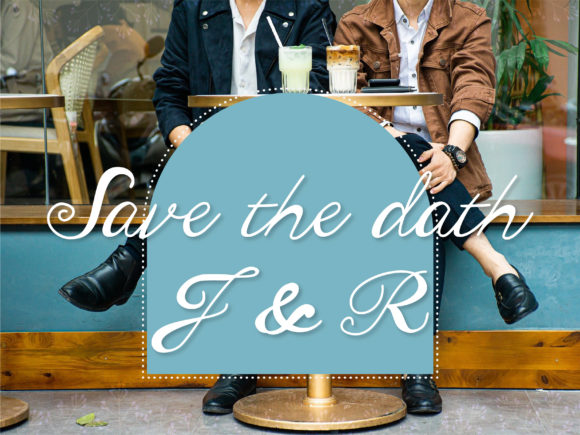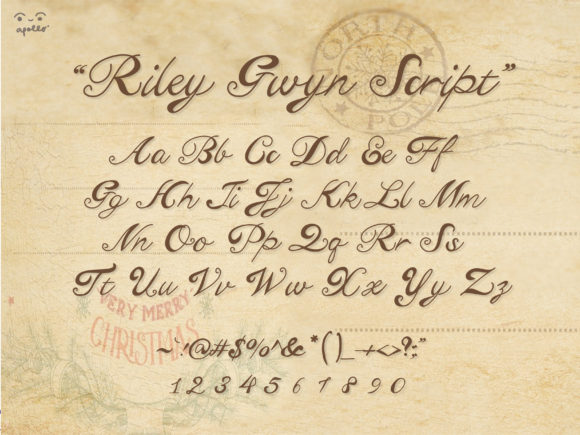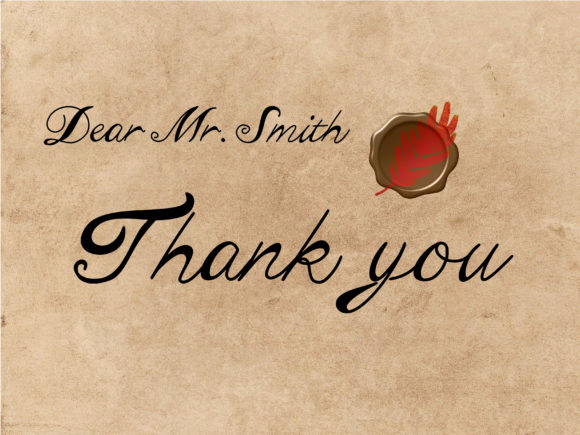
About Riley Gwyn Script Font
Riley Gwyn Script is a vintage handwritten font. Whether you’re using it for crafts, digital design, presentations, or making greeting cards, this font has the potential to become your favorite go-to font, no matter the occasion!